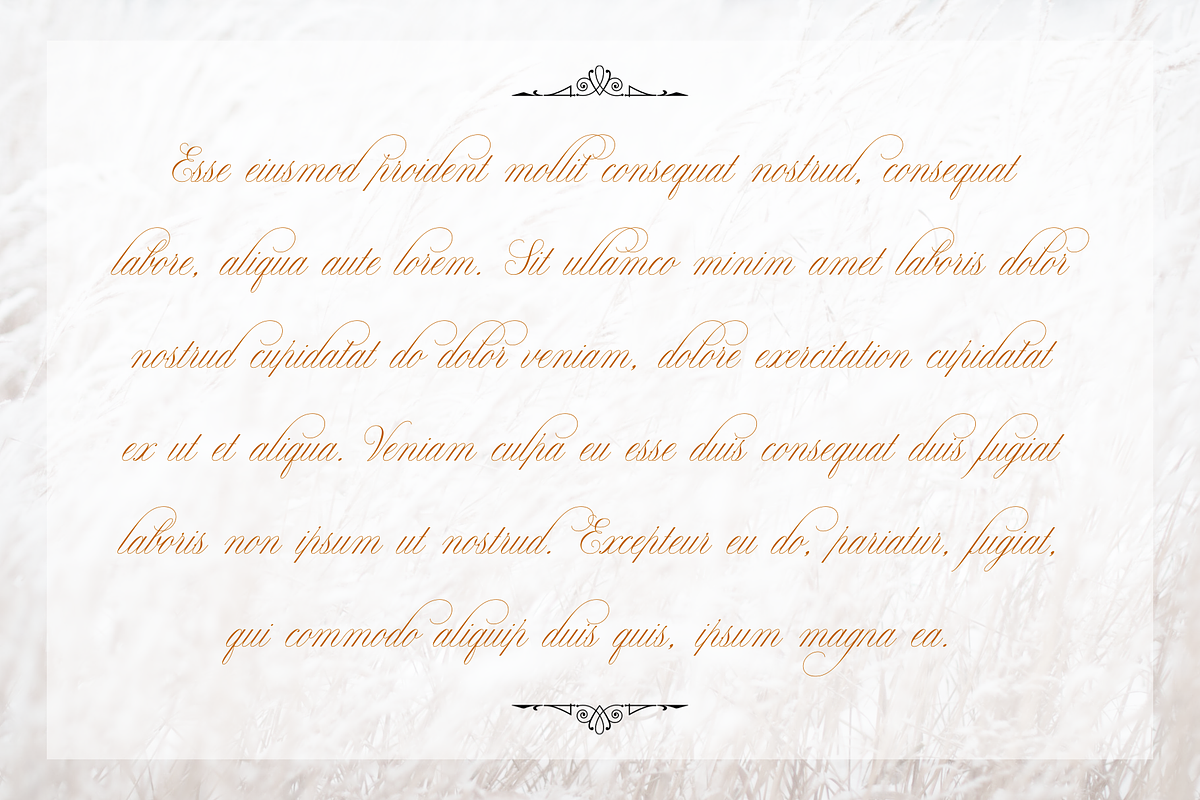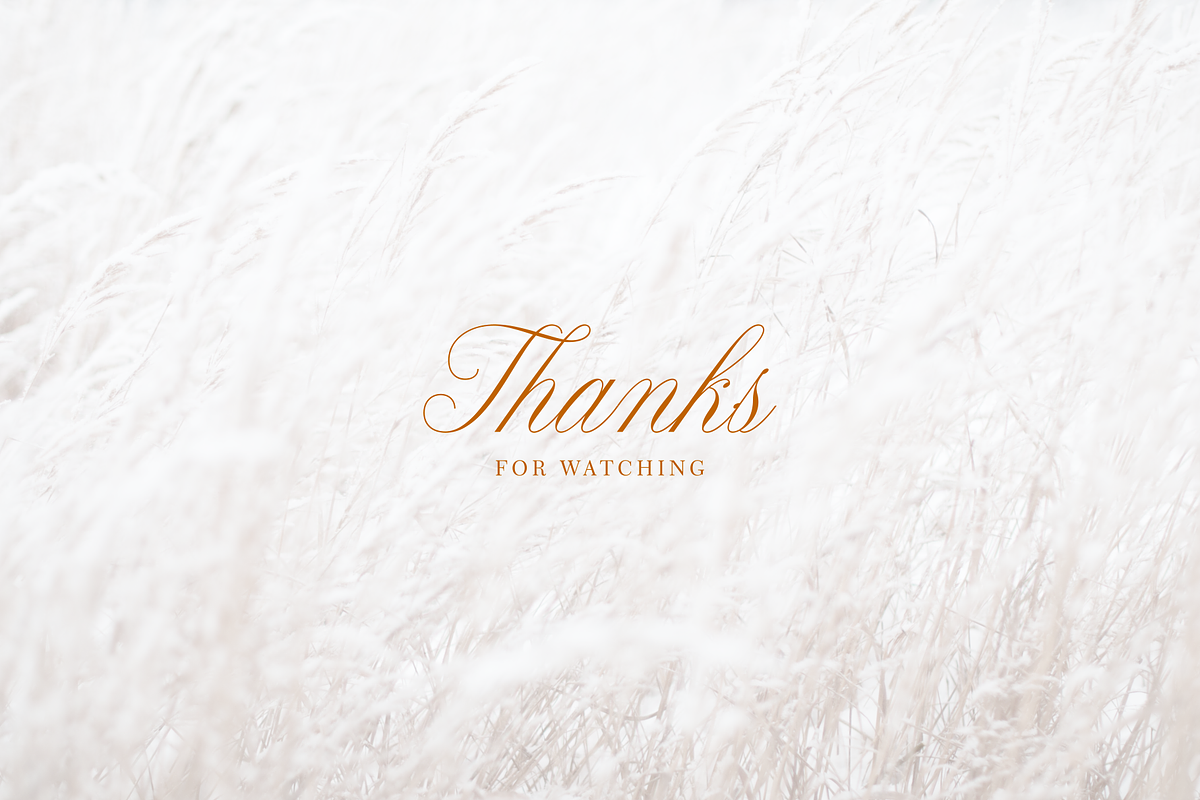
Claudya Script
Claudya Script is a beautiful font. Claudya Script is perfect for branding, wedding invites and cards, magazine covers, advertising banners and more. Equipped with some alternative characters, will make the design more varied and unique.
- Stylistic Set